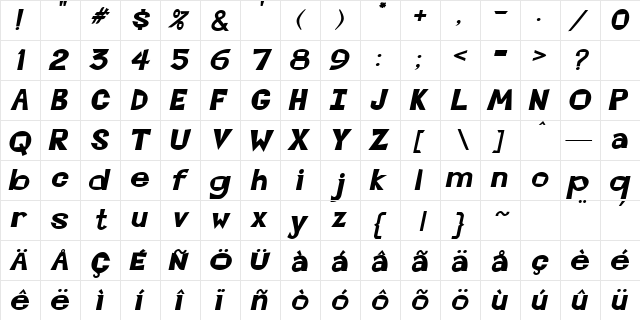
Cocktails HeavyItalic Font Preview
Cocktails HeavyItalic
Design Context for Cocktails Typeface
Cocktails offers clean, dependable letterforms without strong stylistic allegiance, making it a practical choice for designers who need flexibility. Its italic angle brings a sense of urgency and motion to the letterforms.